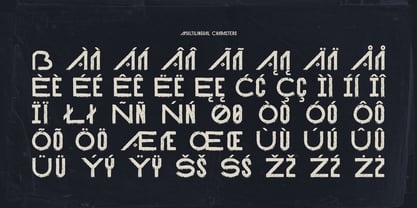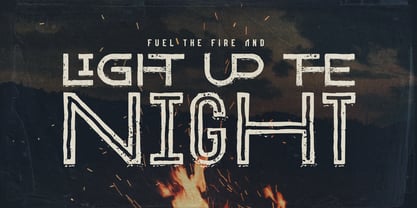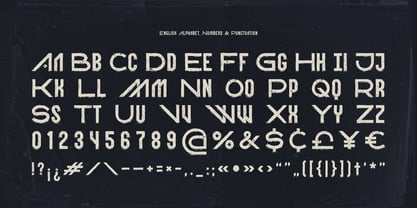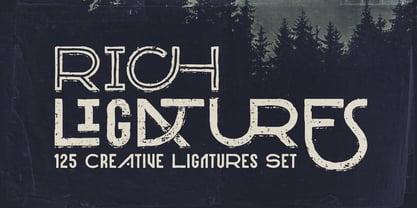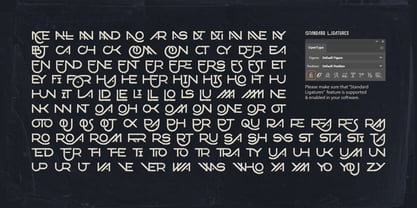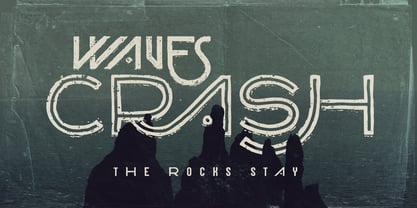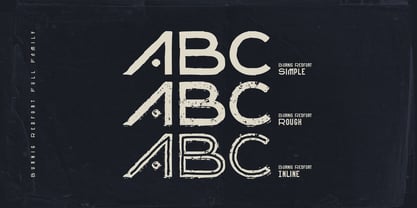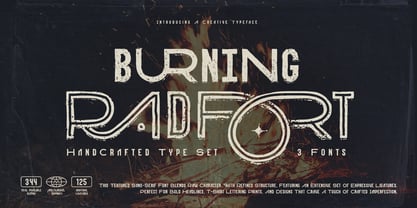
Burning Radfort
by Gleb Guralnyk
The Burning Radfort Font Family was designed by Gleb Guralnyk and published by Gleb Guralnyk. Burning Radfort contains 3 styles and family package options. More about this family
Hi! Introducing a handcrafted font set named Burning Radfort. This textured sans-serif font blends raw character with refined structure, featuring an extensive collection of expressive ligatures. It's perfect for bold headlines, t-shirt prints, and designs that crave a touch of crafted imperfection.
The Burning Radfort family includes three styles: Rough (the base font), Inline (with inner line detailing), and Simple (a cleaner version for smaller text). Each font contains 125 original ligatures (enabled for uppercase letters) and supports multiple languages — check the screenshot to view the full character set!
A lot of my fonts inherits vintage graphic styles but nevertheless I don't like to stick to one theme for a long time. That's why I'm trying to create fonts in different styles and from different eras, from old gothic calligraphic to modern handwritten scripts, from medieval antique to minimalist sans-serif typefaces. It's always interesting to design something new, and expand my skills in novel font design directions.